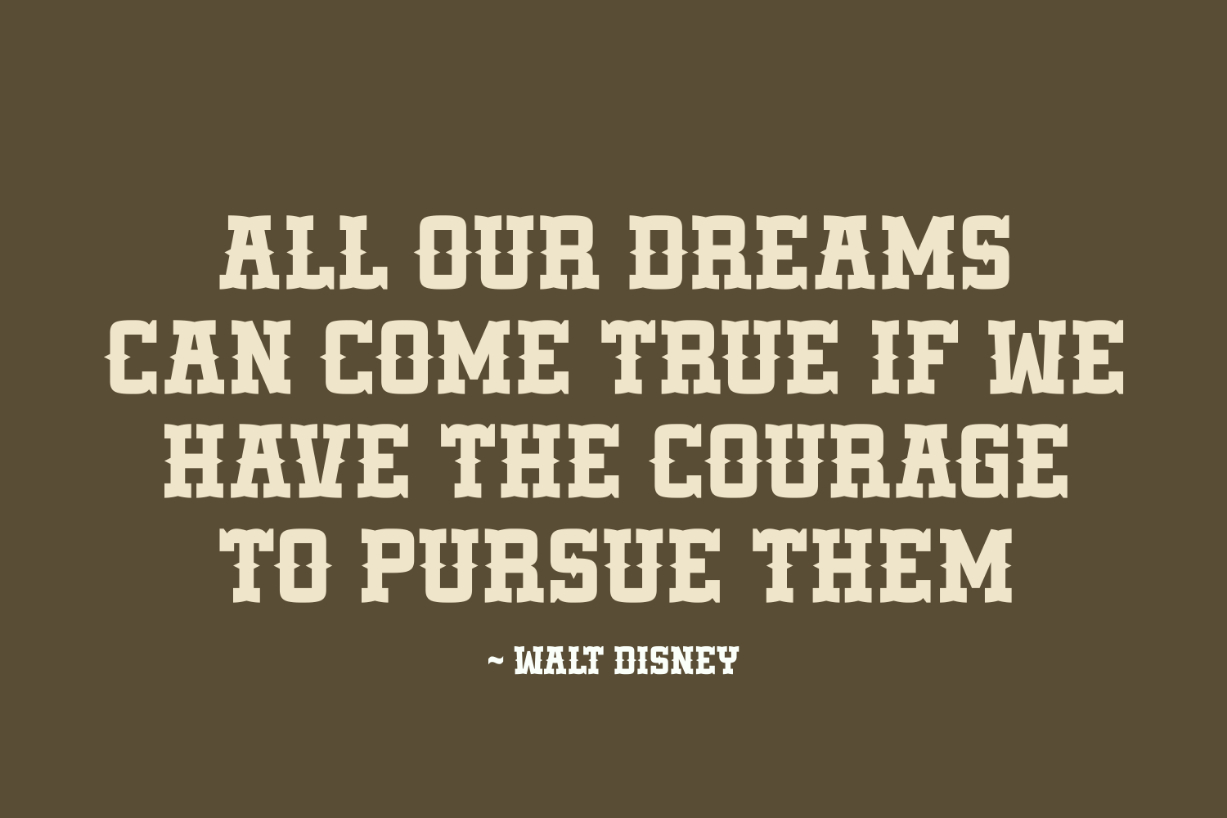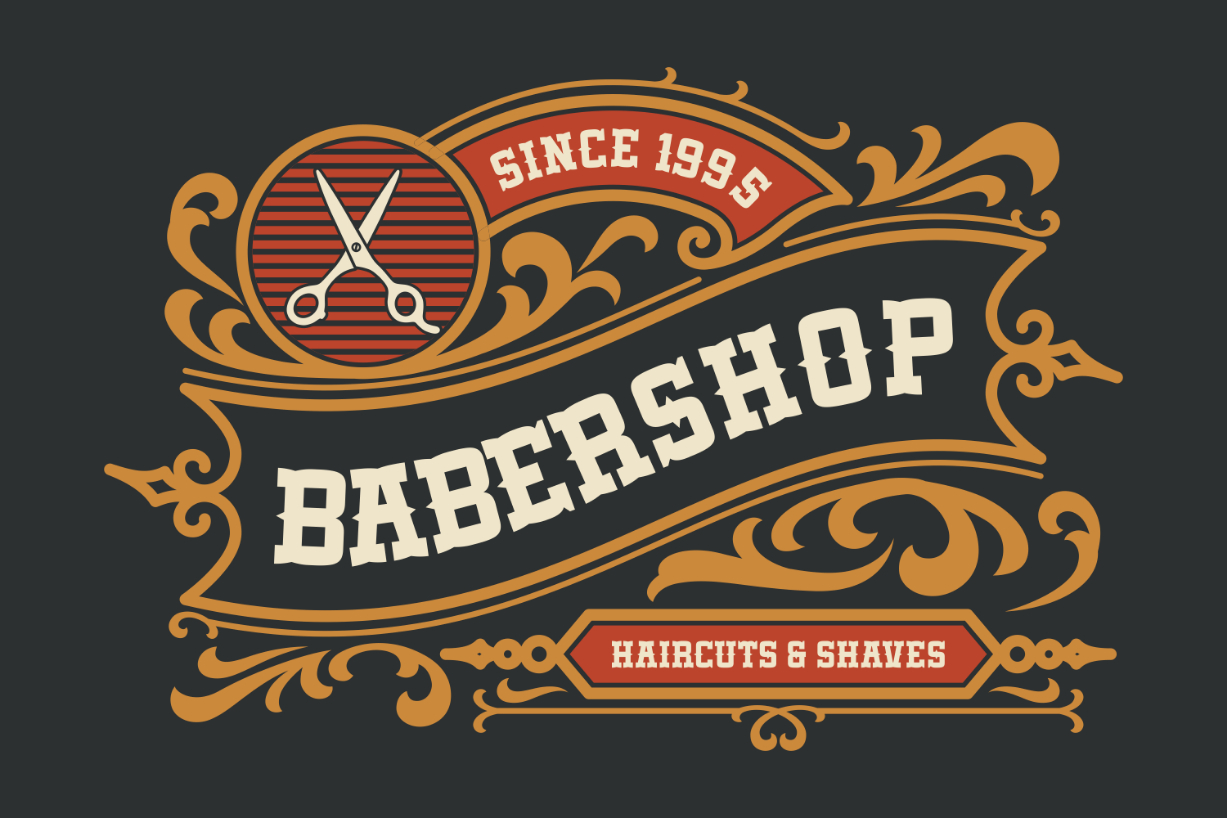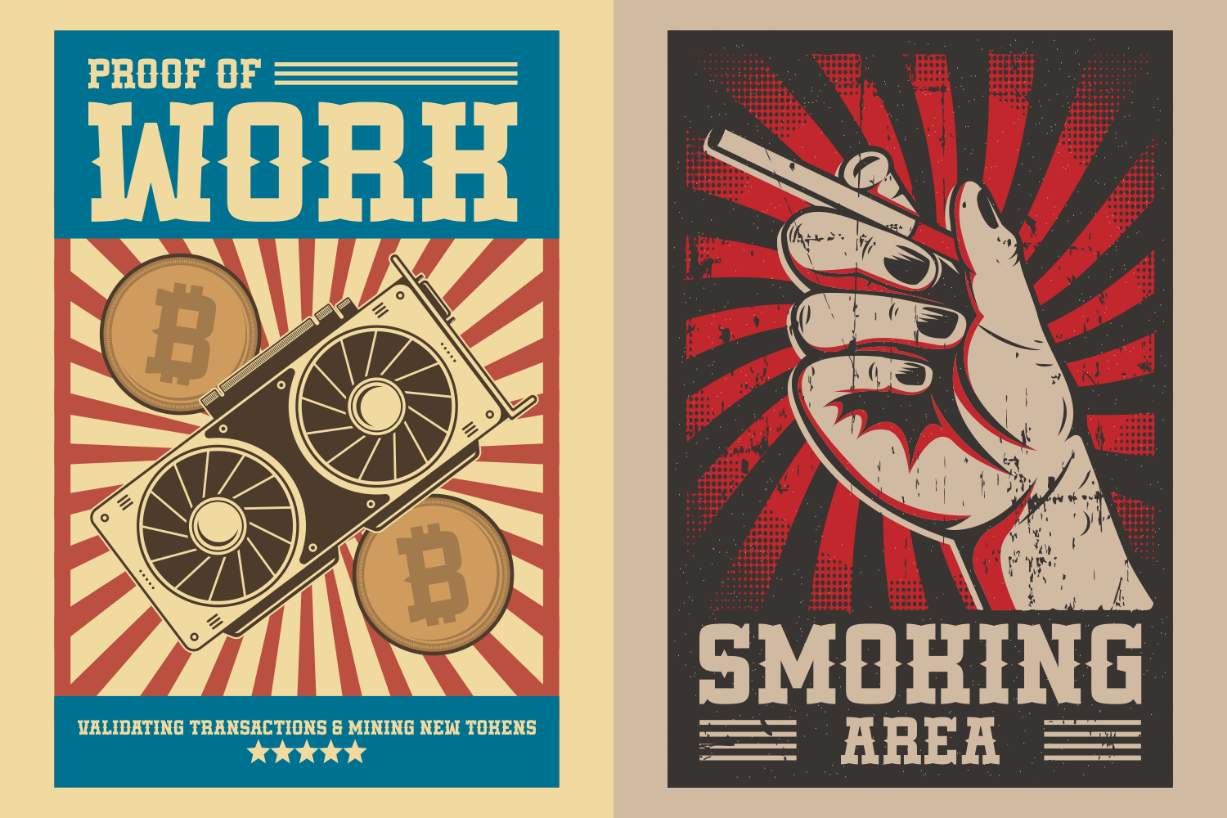
Leonie Bright Font
About Leonie Bright Font
Leonie Bright is a thick and gorgeous blackletter font. Create impressive typography designs with this memorable font that features blocky serifs and sharp, pointy elements! You can use it for posters, banners, product packaging, advertisements, t-shirts, signage, and more.